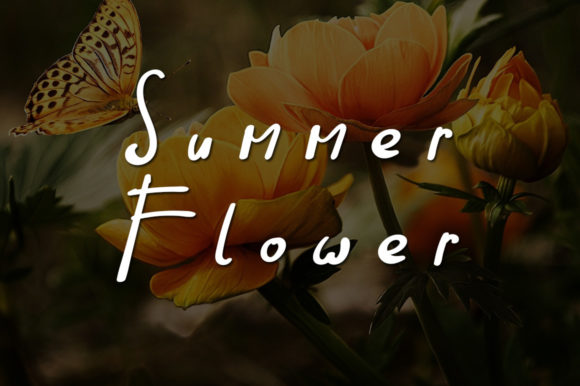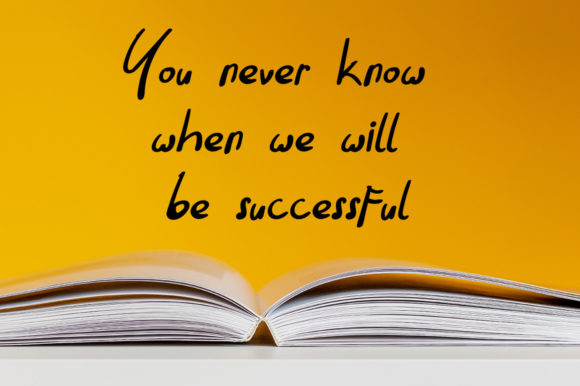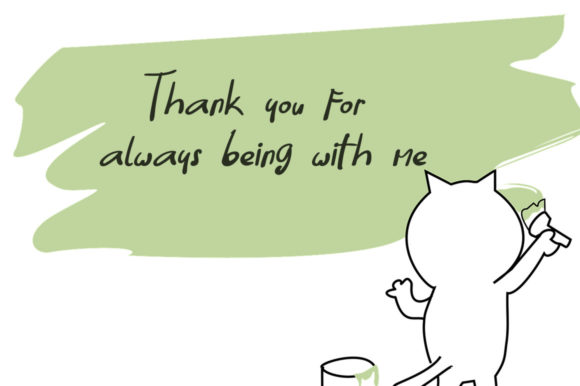
Introduction to Quick Butterfly Font
Quick Butterfly is a simple and adaptable handwritten font.
This cute font will look great on a variety of design ideas It will add a fun and friendly touch to each of your projects.
Quick Butterfly Font offers exceptional quality and versatility, making it a valuable addition to your design toolkit. Whether you’re creating for personal projects or commercial use, Quick Butterfly Font delivers professional results.